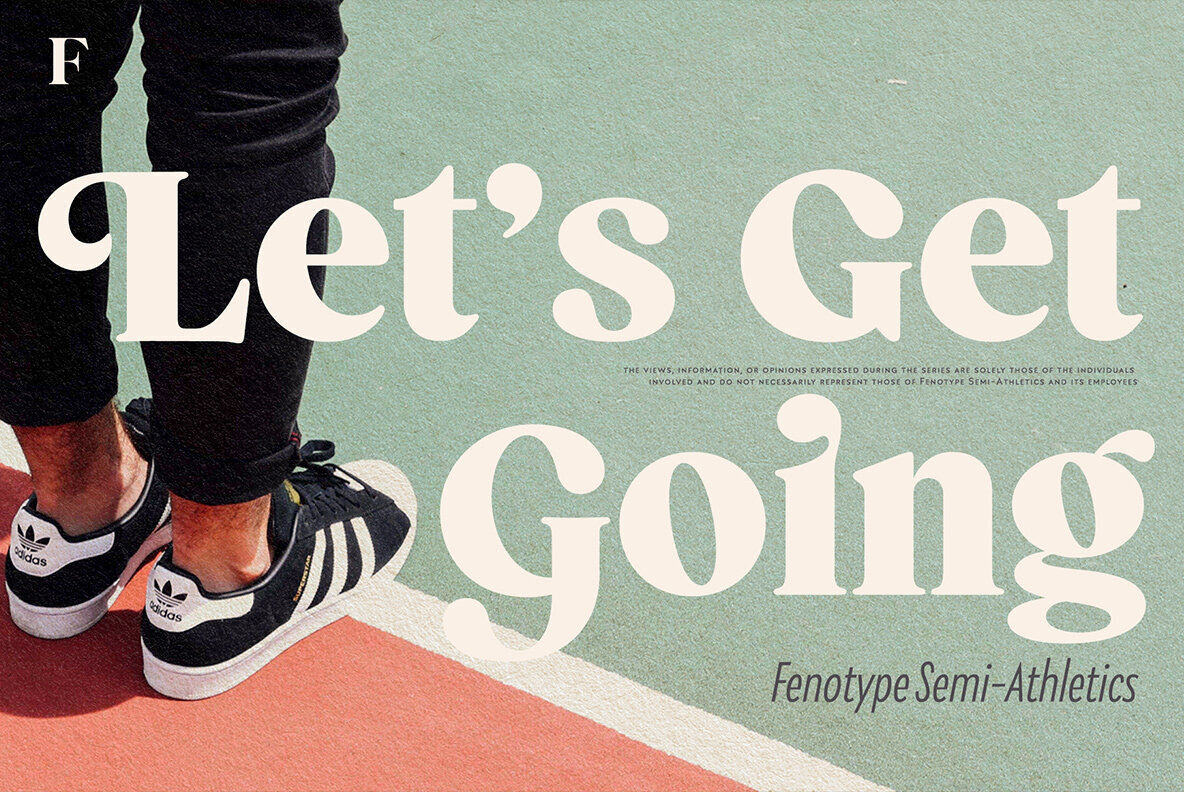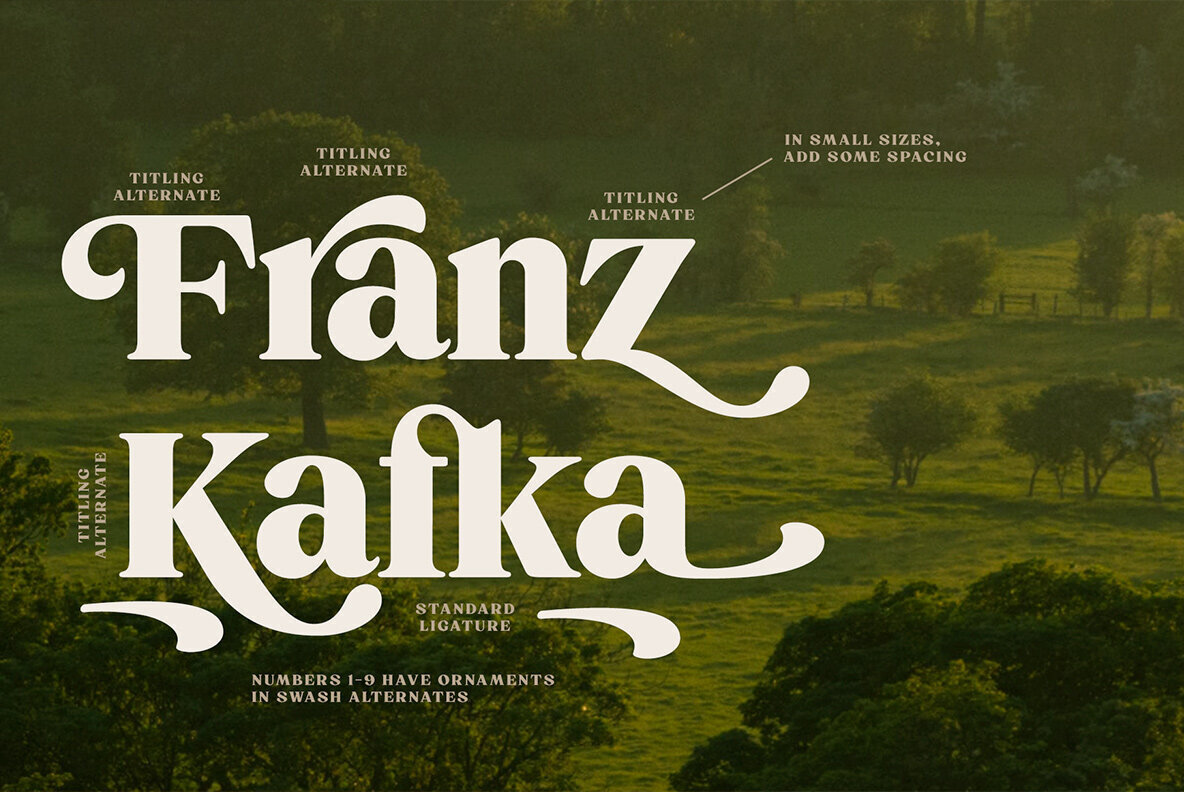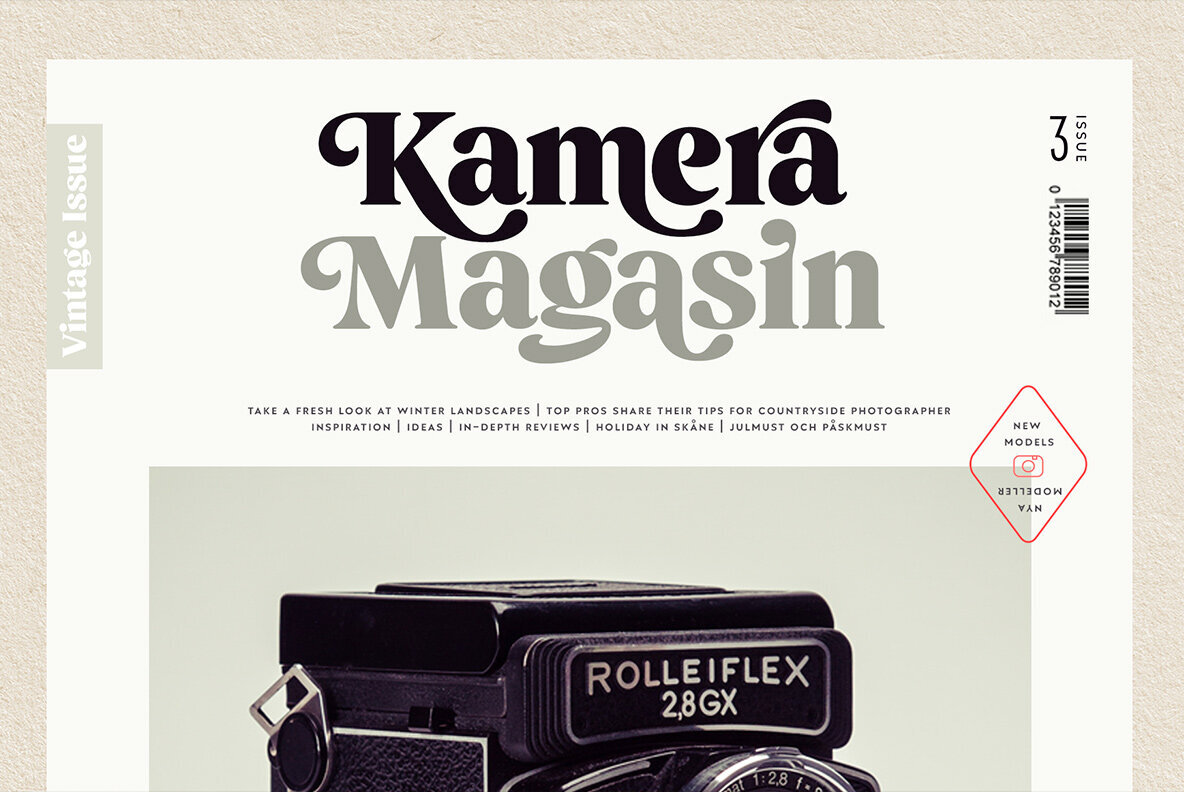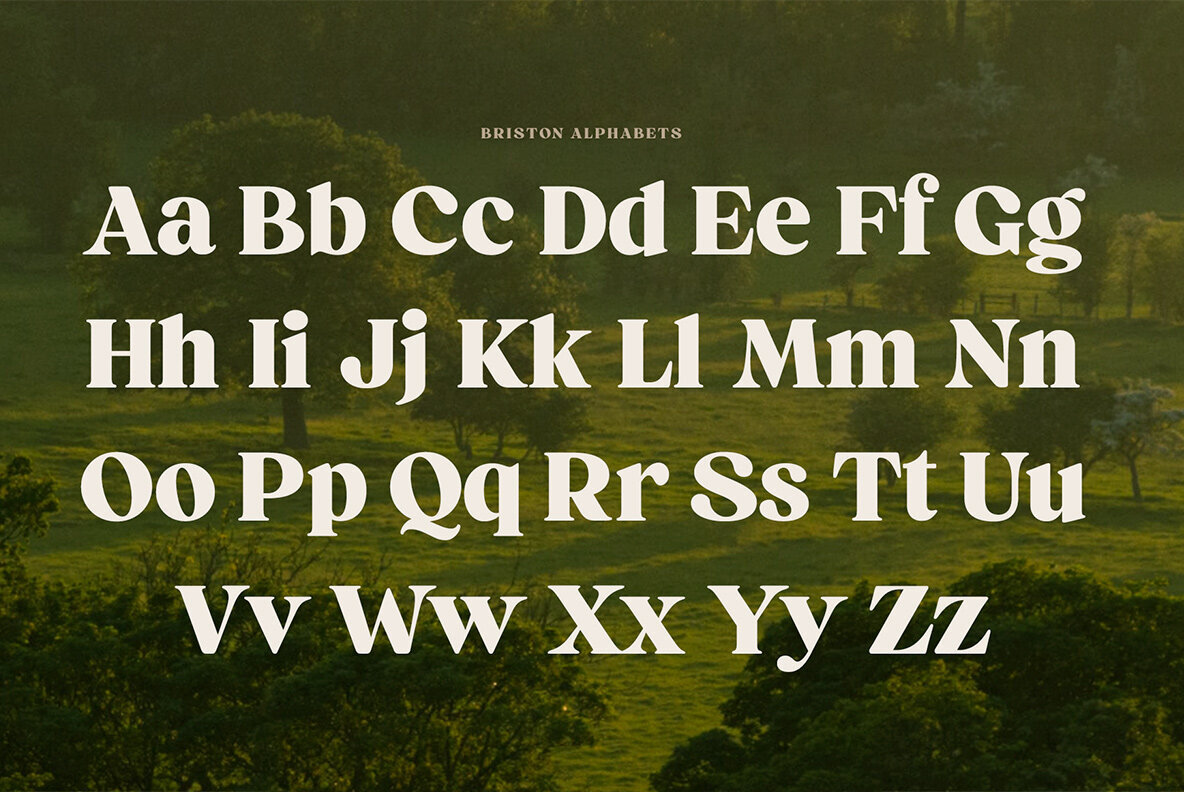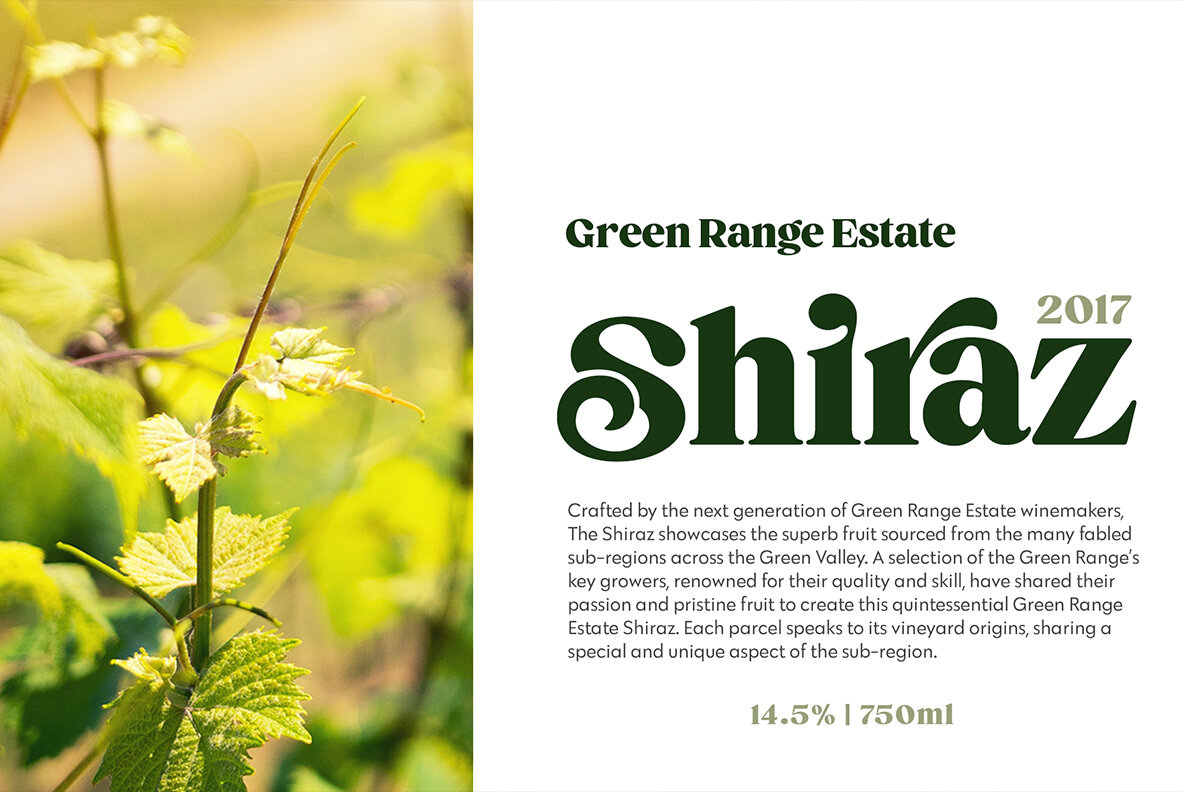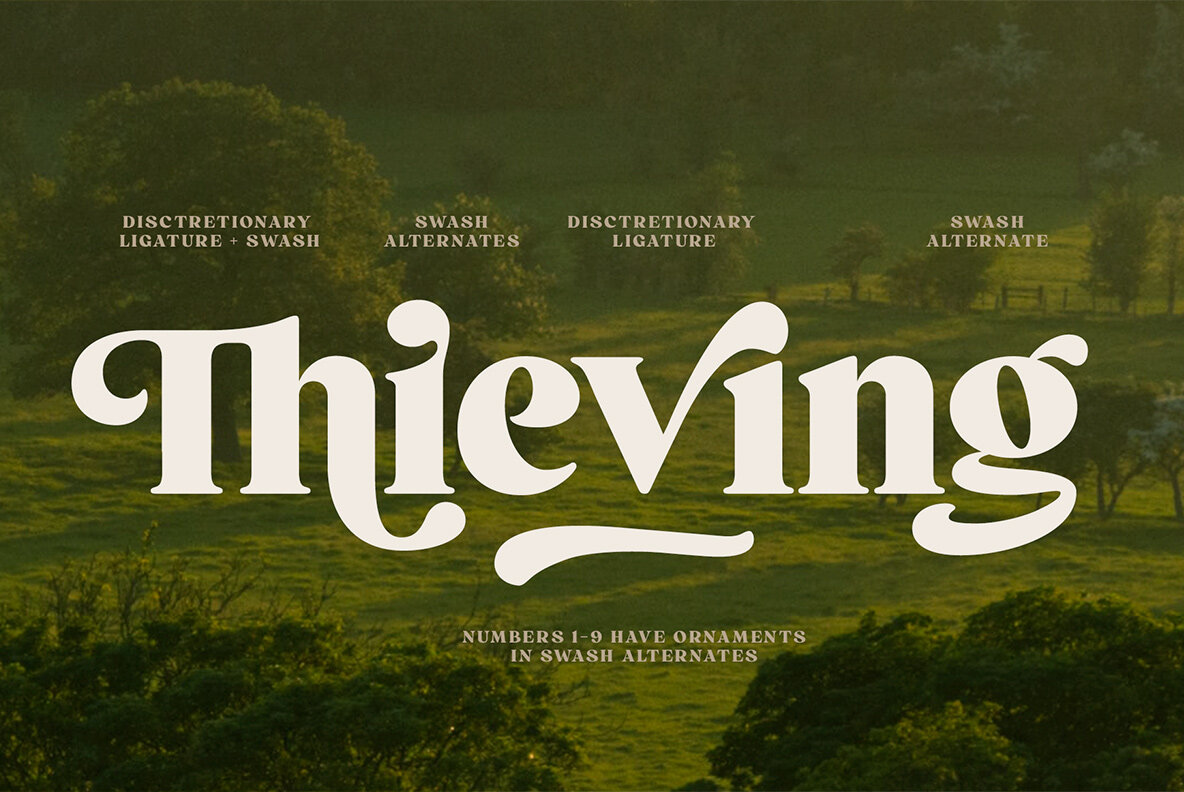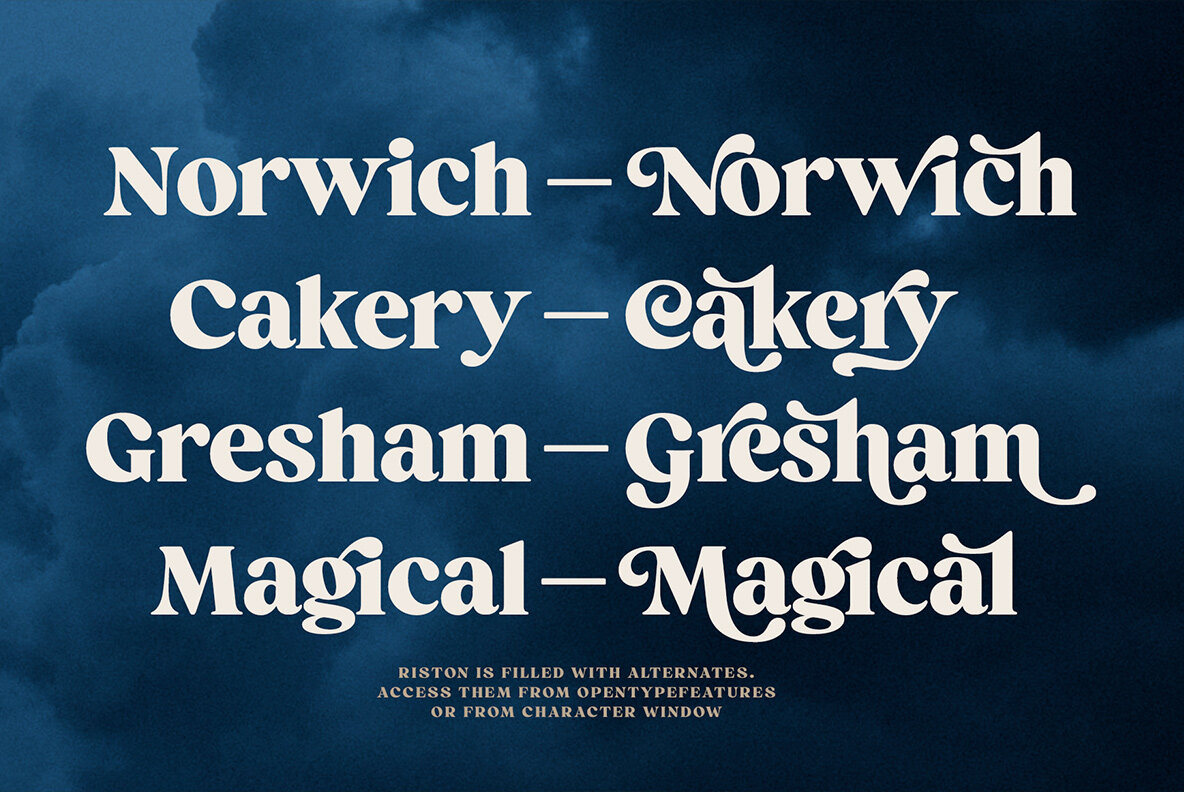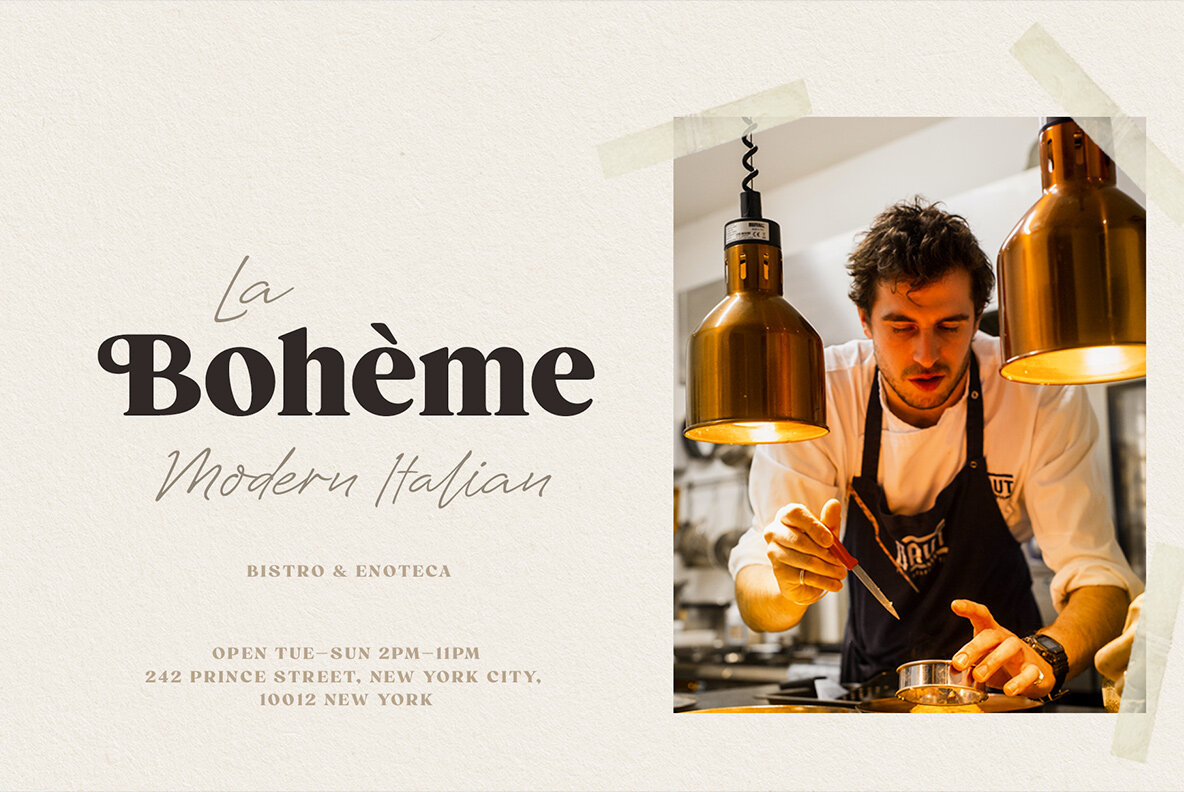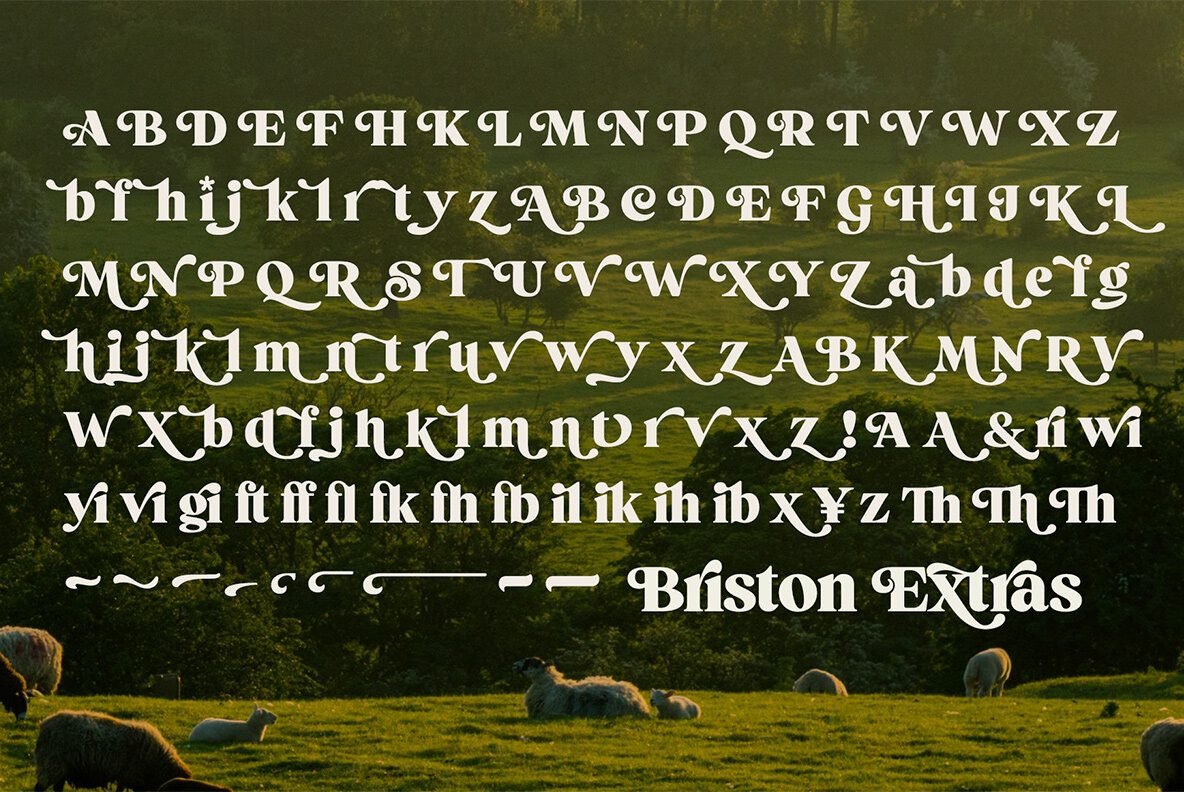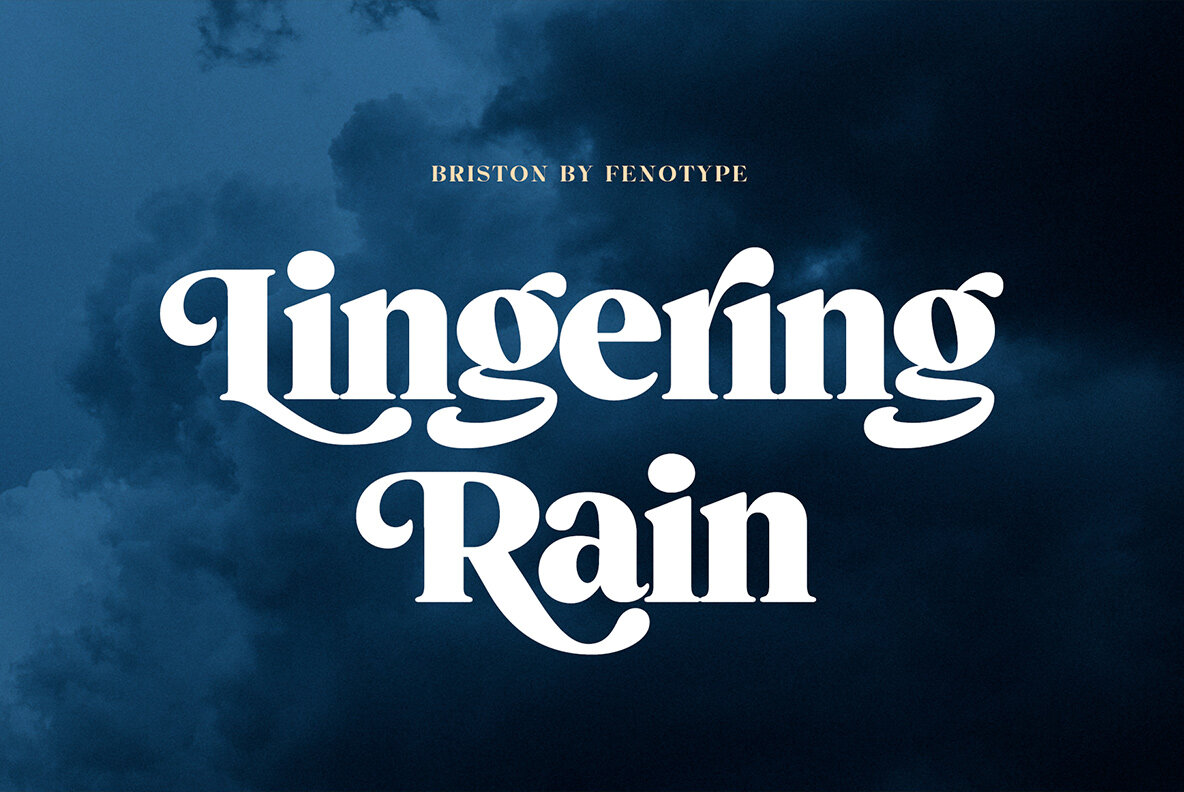
Briston Font
Briston Regular
Briston is a bold vintage style serif font with strong character and soft features. Briston is equipped with Swash, Stylistic and Titling alternates as well as with Standard and Discretionary Ligatures. All these features can be accessed by OpenType controls or straight from Character or Glyphs window. The font is PUA encoded so you can use the extra glyphs in most graphic design softwares. In addition Briston has a small set of ornaments and strokes that are found by turning on Swash -feature and typing characters 1-9.
Briston is and efficient typeface for headlines, logos and display use. You can also try using Briston all caps in really small sizes by adding some spacing.